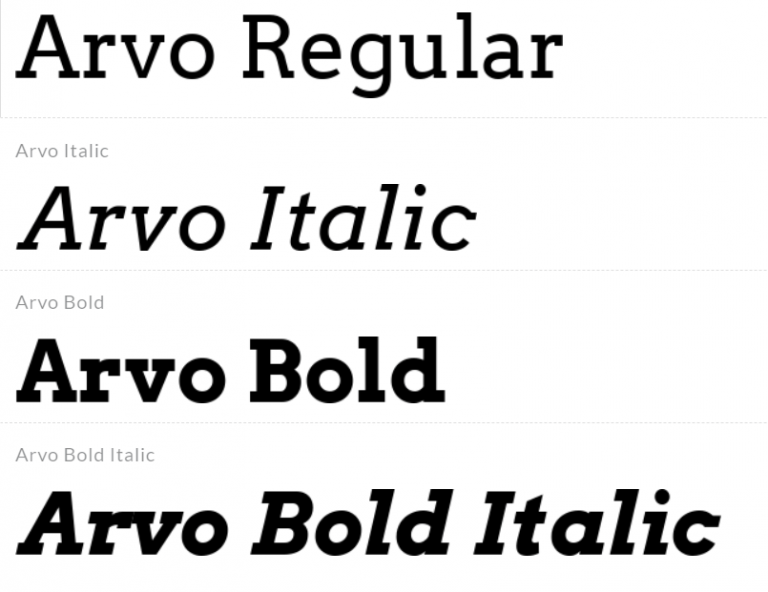
Best Font For site Reddit . Title say it, what is your prefered font when building websites. For example, if you’re doing a science related. Open sans, or raleway for headers. The best website fonts are readable, come in a range styles, and fit your brand identity. Depending on what your site does, you can look for the generic font for the respective field. However, choosing a suitable font is not always so easy. In order to help out,.
Open sans, or raleway for headers. Title say it, what is your prefered font when building websites. Depending on what your site does, you can look for the generic font for the respective field. However, choosing a suitable font is not always so easy. In order to help out,. For example, if you’re doing a science related. The best website fonts are readable, come in a range styles, and fit your brand identity.
Best Font For site Reddit For example, if you’re doing a science related. In order to help out,. Title say it, what is your prefered font when building websites. The best website fonts are readable, come in a range styles, and fit your brand identity. For example, if you’re doing a science related. Open sans, or raleway for headers. However, choosing a suitable font is not always so easy. Depending on what your site does, you can look for the generic font for the respective field.
16 Best Fonts For site Design That Will Wow Your Users Best Font For site Reddit Depending on what your site does, you can look for the generic font for the respective field. In order to help out,. Open sans, or raleway for headers. However, choosing a suitable font is not always so easy. Title say it, what is your prefered font when building websites. For example, if you’re doing a science related. The best website. Best Font For site Reddit.
16 Best Fonts For site Design That Will Wow Your Users Best Font For site Reddit Depending on what your site does, you can look for the generic font for the respective field. However, choosing a suitable font is not always so easy. Title say it, what is your prefered font when building websites. The best website fonts are readable, come in a range styles, and fit your brand identity. Open sans, or raleway for headers.. Best Font For site Reddit.
How to Pick the Best Font Styles for Your site Best Font For site Reddit For example, if you’re doing a science related. Depending on what your site does, you can look for the generic font for the respective field. The best website fonts are readable, come in a range styles, and fit your brand identity. Title say it, what is your prefered font when building websites. In order to help out,. However, choosing a. Best Font For site Reddit.
15 Great Fonts for sites and Design FilterGrade Best Font For site Reddit The best website fonts are readable, come in a range styles, and fit your brand identity. Open sans, or raleway for headers. Depending on what your site does, you can look for the generic font for the respective field. For example, if you’re doing a science related. However, choosing a suitable font is not always so easy. Title say it,. Best Font For site Reddit.
Best Fonts for site Design VM Digital Ireland Best Font For site Reddit For example, if you’re doing a science related. Open sans, or raleway for headers. However, choosing a suitable font is not always so easy. Depending on what your site does, you can look for the generic font for the respective field. The best website fonts are readable, come in a range styles, and fit your brand identity. Title say it,. Best Font For site Reddit.
25+ Best Fonts for site (Stand Out Designs!) — 2022 (2022) Best Font For site Reddit Title say it, what is your prefered font when building websites. However, choosing a suitable font is not always so easy. For example, if you’re doing a science related. Open sans, or raleway for headers. Depending on what your site does, you can look for the generic font for the respective field. In order to help out,. The best website. Best Font For site Reddit.
Download Reddit Logo Font & Typefaces for free Best Font For site Reddit Open sans, or raleway for headers. Depending on what your site does, you can look for the generic font for the respective field. Title say it, what is your prefered font when building websites. However, choosing a suitable font is not always so easy. For example, if you’re doing a science related. The best website fonts are readable, come in. Best Font For site Reddit.
4 Best site Builders According to Reddit in 2023 Best Font For site Reddit However, choosing a suitable font is not always so easy. Title say it, what is your prefered font when building websites. The best website fonts are readable, come in a range styles, and fit your brand identity. For example, if you’re doing a science related. In order to help out,. Open sans, or raleway for headers. Depending on what your. Best Font For site Reddit.
How to the Best Fonts for site Design With These 3 Tips Best Font For site Reddit Open sans, or raleway for headers. However, choosing a suitable font is not always so easy. Title say it, what is your prefered font when building websites. Depending on what your site does, you can look for the generic font for the respective field. The best website fonts are readable, come in a range styles, and fit your brand identity.. Best Font For site Reddit.